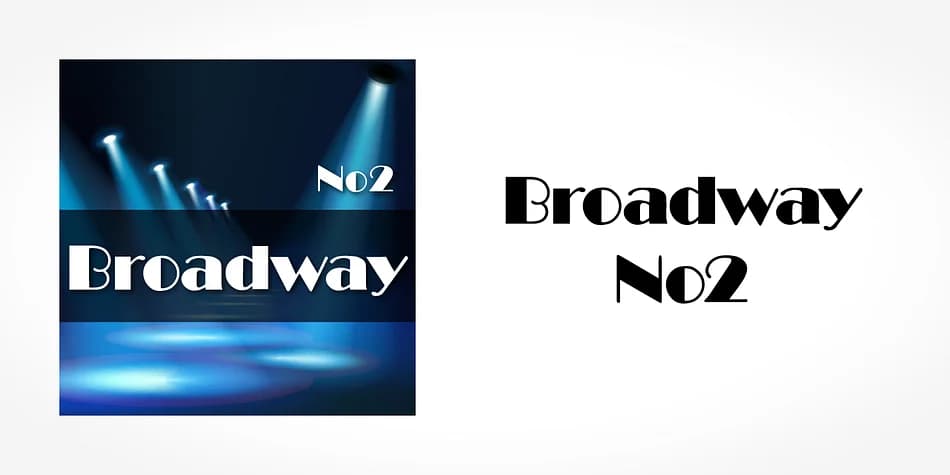
Broadway No2 captures the bold geometry and theatrical flair of the Art Deco era, designed by SoftMaker to bring that vintage 1920s energy to contemporary projects. The letterforms have the distinctive geometric weight and swagger you'd find on old theater marquees and art deco posters, with thick, confident strokes that demand attention on the page.
This font works beautifully for designs that need real visual impact and period-specific character. Consider it for wedding invitation suites with that retro-glamor aesthetic, band logos and music event flyers where attitude matters, vintage label designs for craft beverages or apothecary brands, or fancy restaurant menus that reference another era. The decorative character shines brightest at display sizes, where each letter becomes an ornamental statement rather than just text.
The design handles the theatrical drama that 1920s style requires without veering into cartoonish territory or feeling dated in a trendy way. It's a natural choice for anyone building a vintage brand identity or designing projects where historical reference and personality matter equally. This font pairs well with serif companions for body text, letting Broadway No2 command the spotlight in headlines and visual moments. Get it on Creative Fabrica to bring that authentic jazz-age charm to your next project.
Broadway No2 Font is a decorative font that shines as a display or heading face. Pair it with a clean sans-serif or serif font for body text β the contrast creates a clear hierarchy while the two styles stay balanced and easy to read.